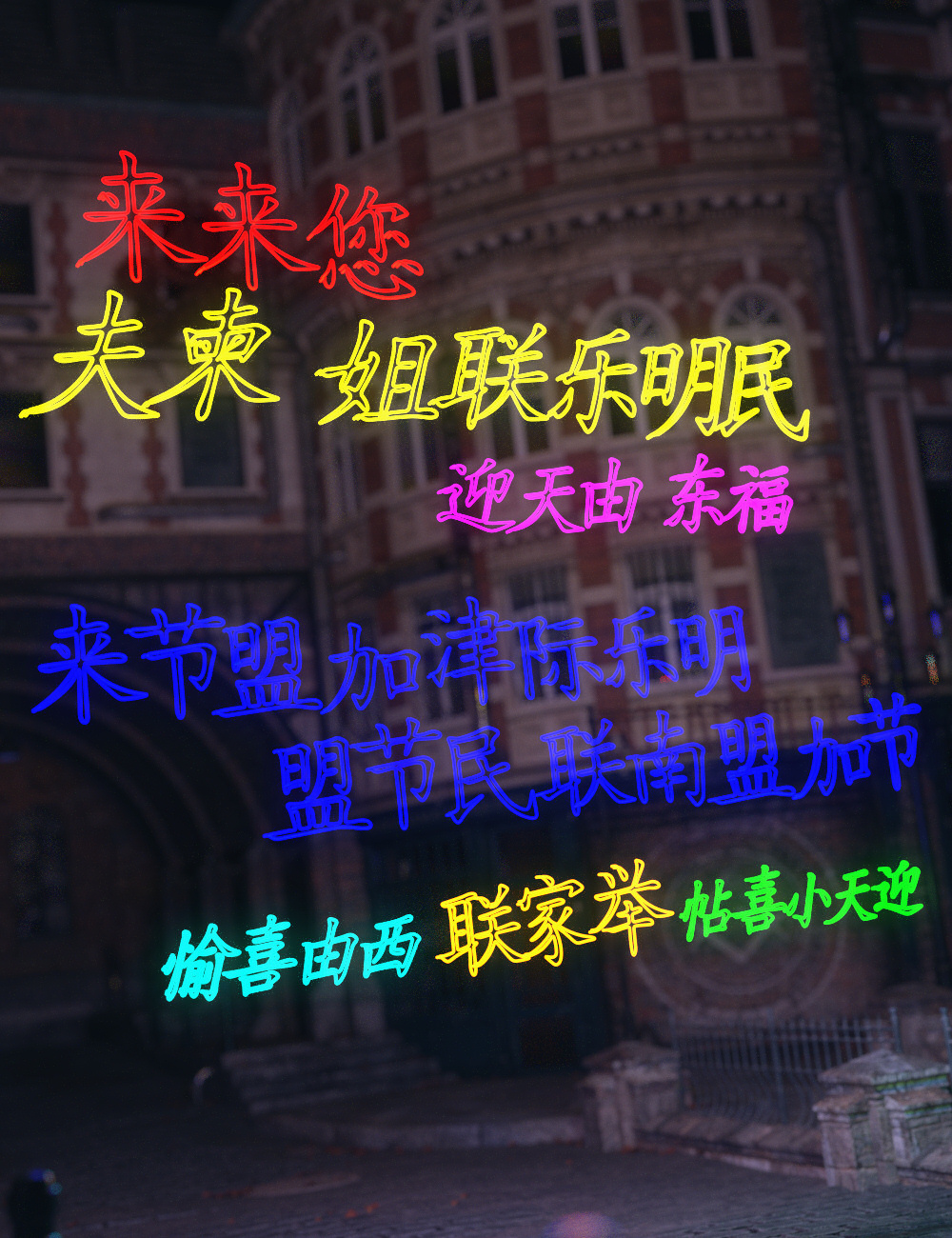
MMX 3D Fonts 04 - Merchant Resource
MMX 3D Fonts 04 Merchant Resource
This is a set of 186 Chinese neon sign-style font props. It comes in 2 different font types, standard and italic. The props are labeled based on the English keyboard keys used to produce the Chinese character, instead of the name of the actual Chinese character. As a result, the props are separated by upper case, lower case, numbers, and special characters.  The set includes 8 light shader presets and one frosted type glass preset that does not emit light.